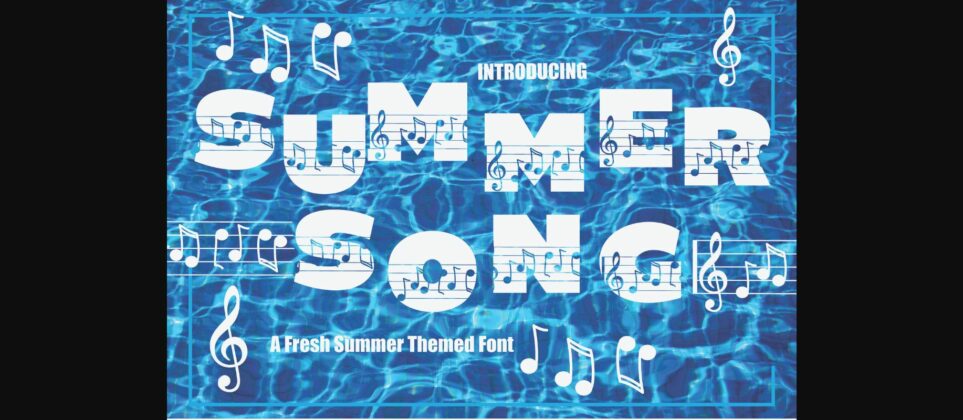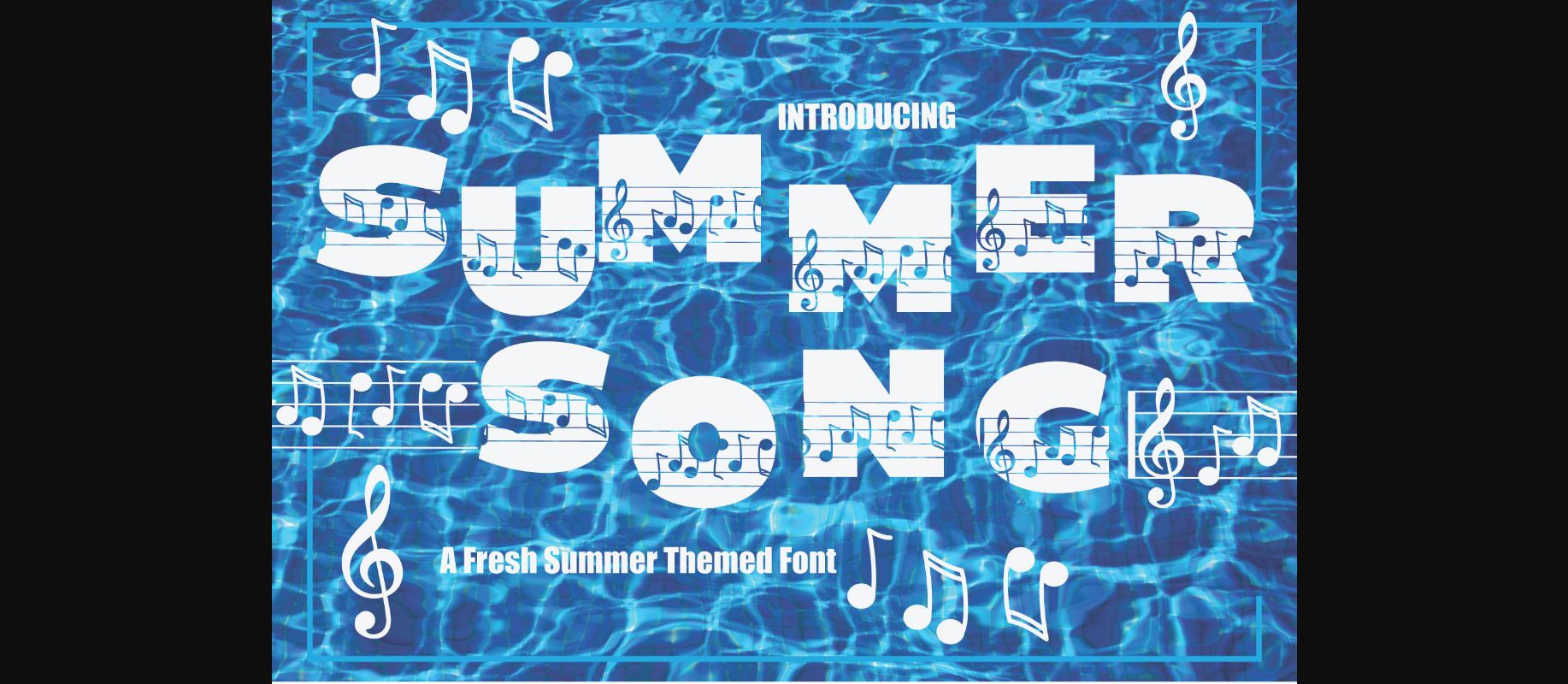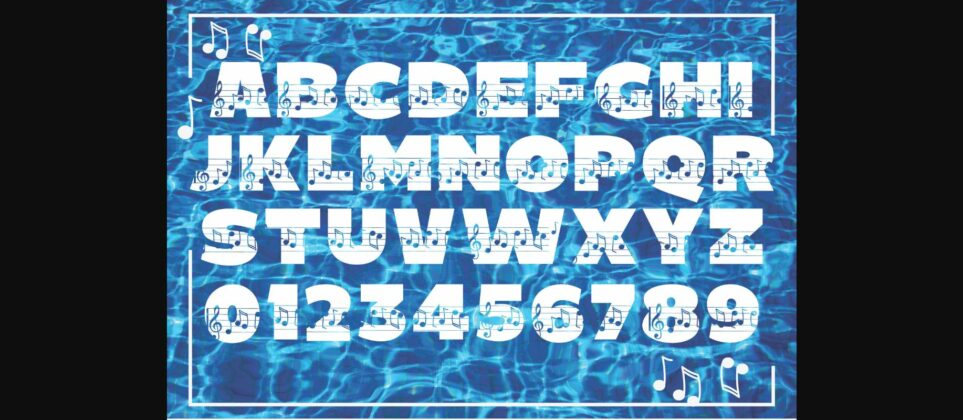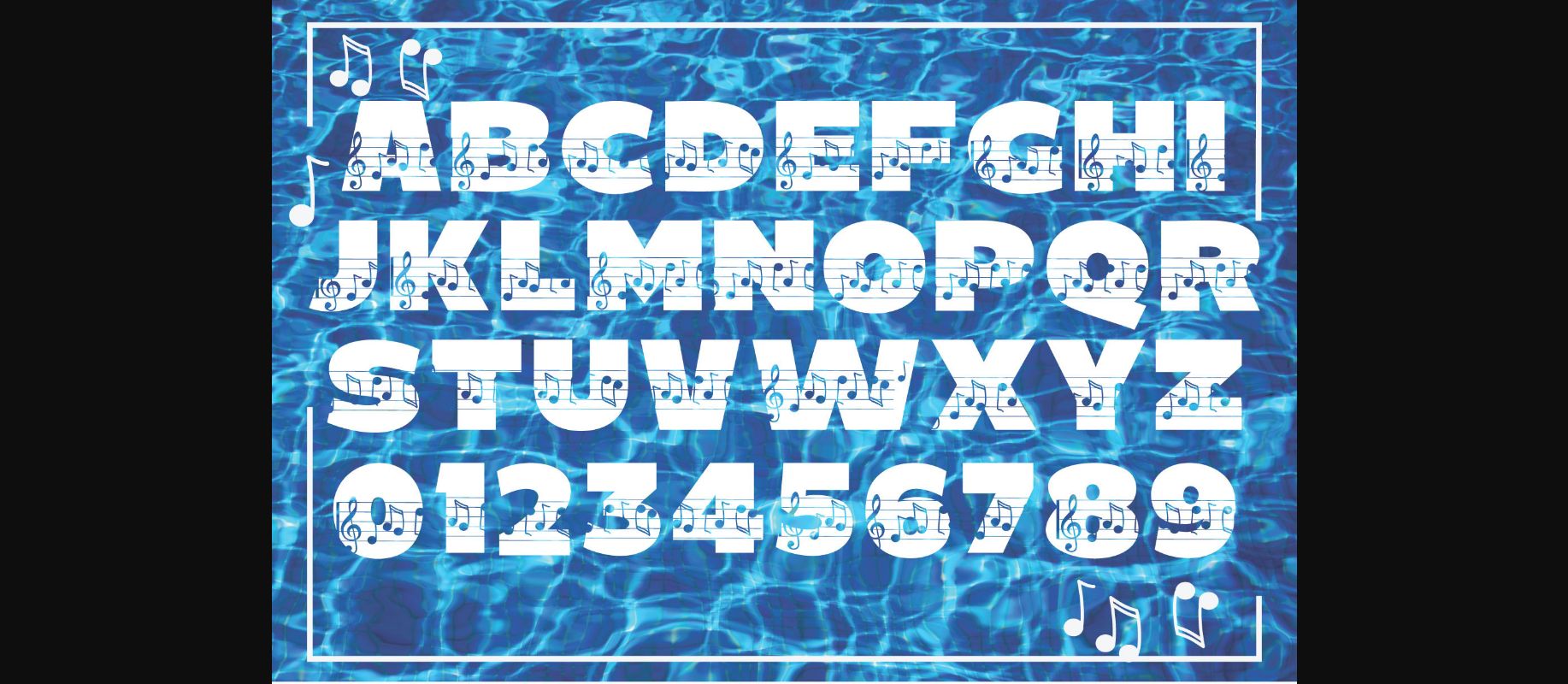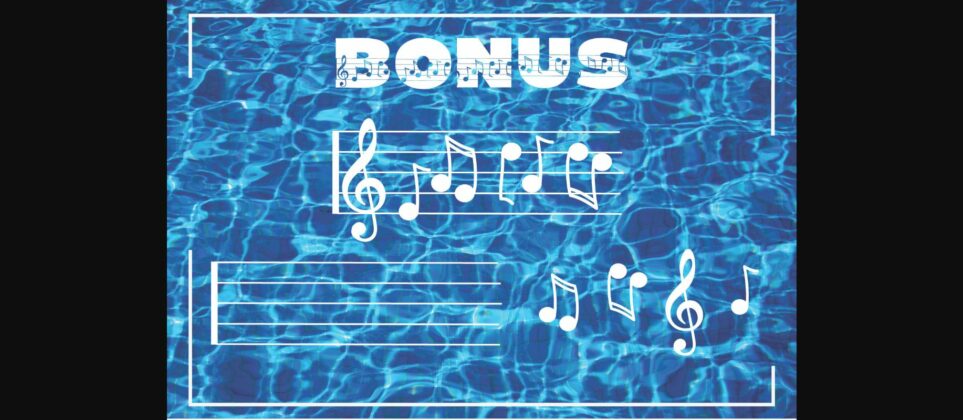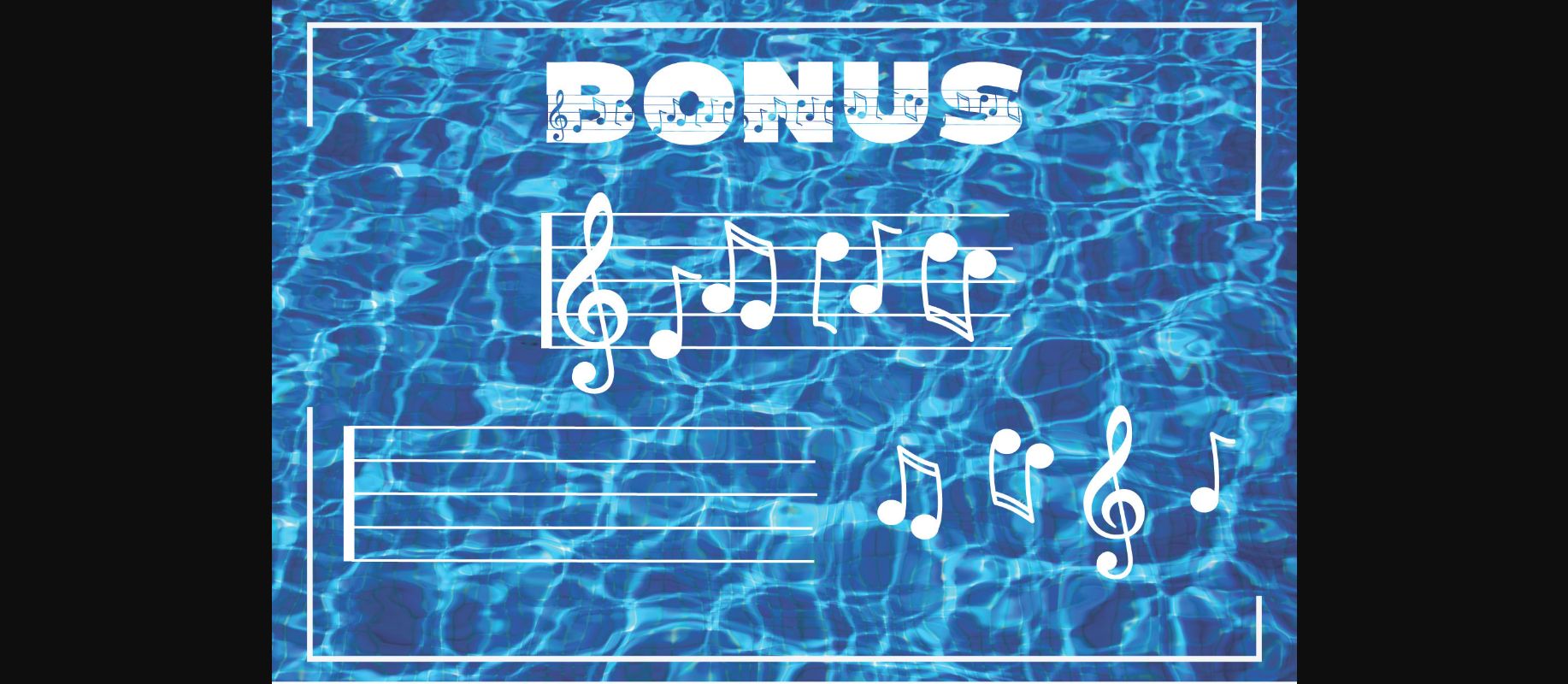
About Summer Song Font
Summer Song is a cool, fresh, and summery decorative font. Whether you’re using it for crafting, digital designing, presentations, or greeting card making, it’s perfect!